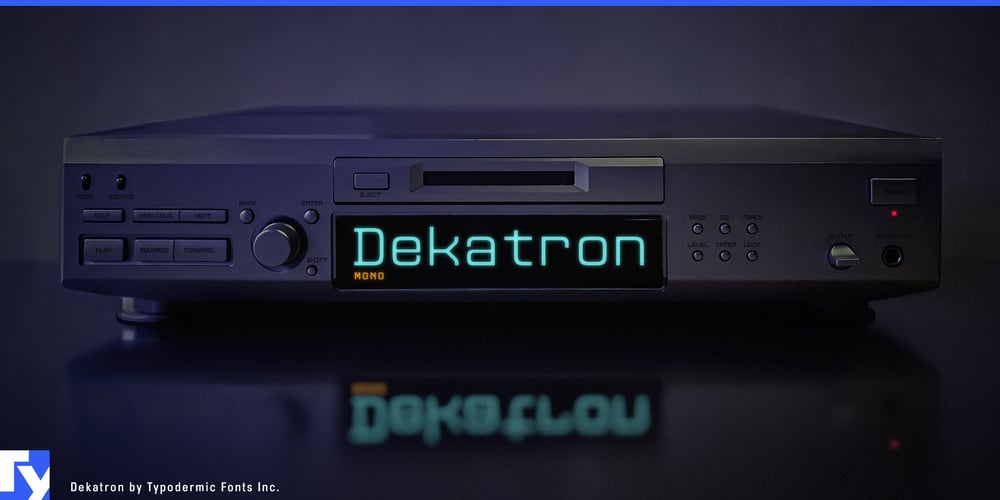
Dekatron Font Family was designed by Ray Larabie and published by Typodermic. Dekatron contains 12 styles and family package options. Dekatron: Where precision meets innovation in the realm of typography. This monospaced masterpiece from Typodermic Fonts doesn’t just nod to the future—it’s already there, waiting for the rest of design to catch up. With its squarish silhouette and futuristic flair, Dekatron speaks the language of tomorrow’s technology today.Engineered with meticulous attention to detail, Dekatron offers a spectrum of six weights—from whisper-thin extra-light to commandingly bold extra-bold. Each character, crafted with precision-rounded ends, strikes a balance between clarity and sophistication. The subtle superelliptical tension in every corner adds a warm, analog touch to its digital DNA, creating a texture that’s as inviting as it is innovative. But Dekatron isn’t content with just static perfection. Enter Dekatron Variable—a dynamic tour de force that puts the power of fluid typography at your fingertips. This cutting-edge variable font allows for seamless weight transitions, enabling designers to fine-tune their typographic voice with pinpoint accuracy. Whether you’re animating text for a high-tech presentation or creating responsive designs that adapt to any screen, Dekatron Variable offers unparalleled flexibility.Dekatron’s monospaced architecture isn’t just about aesthetics—it’s a practical powerhouse. It excels in environments where precision is paramount: from coding platforms and technical documentation to futuristic user interfaces and sci-fi film titles. Its clear, robotic cadence brings a sense of order to complex information, while its sophisticated design elevates the mundane to the extraordinary. This typeface isn’t just fluent in the language of technology—it’s a polyglot of the digital age. Dekatron supports a vast array of Latin-based European writing systems, ensuring your message resonates from the fjords of Norway to the plains of Hungary. It’s equally at home spelling out algorithms in English or crafting poetic verse in Polish, making it a truly global citizen of the typographic world.Dekatron doesn’t just keep pace with the future—it defines it. Its unique blend of monospaced practicality and forward-thinking design makes it the perfect choice for brands and projects that dare to innovate. Whether you’re designing the interface for the next breakthrough app or creating signage for a cutting-edge research facility, Dekatron provides the typographic foundation for ideas that push boundaries.Embrace the precision. Harness the innovation. Let Dekatron be the voice of your vision, articulating your ideas with a clarity and style that’s light-years ahead of the curve. In a world where every millisecond counts, Dekatron doesn’t just tell time—it defines the future of typography, one precisely spaced character at a time.